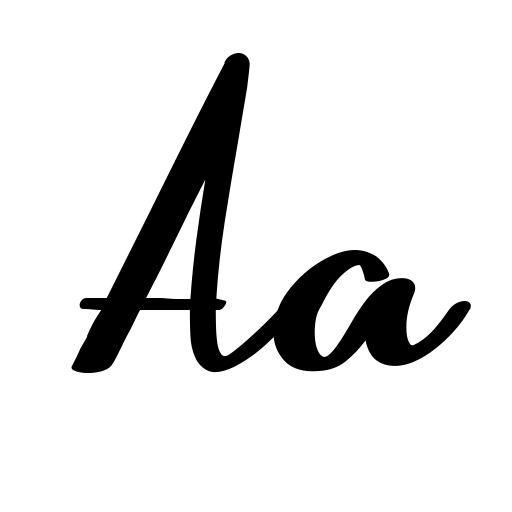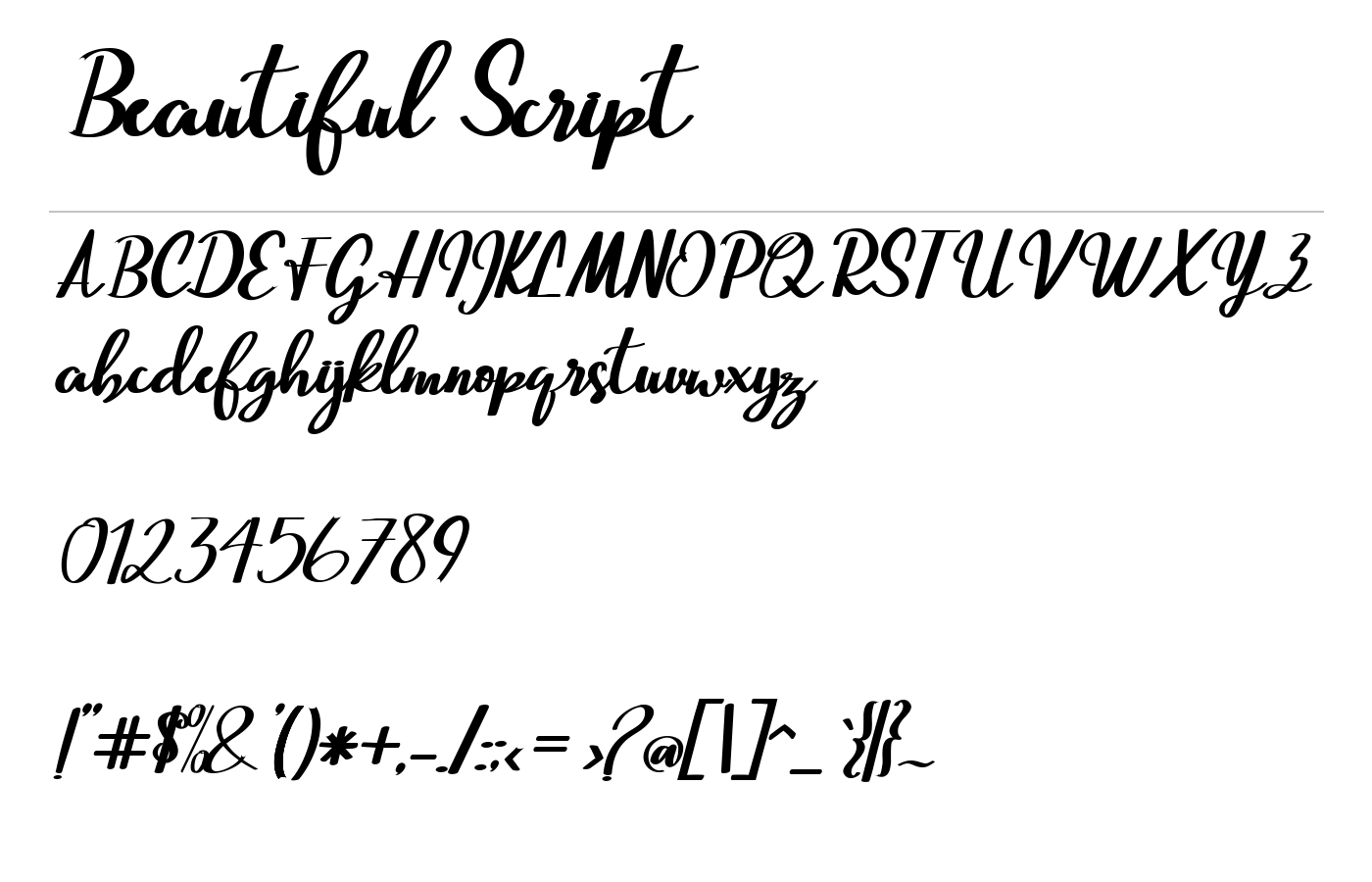
Beautiful Script Font is an elegant, flowing script typeface with smooth, moderate contrast strokes and a lively, handcrafted feel. Its cursive forms combine casual sophistication with readable letter shapes, making it perfect for branding, invitations, and stylish headlines where a touch of personality and grace is desired. This font blends timeless charm with modern readability, ideal for projects needing a refined yet approachable script style.
Beautiful Script Font
About Beautiful Script Font